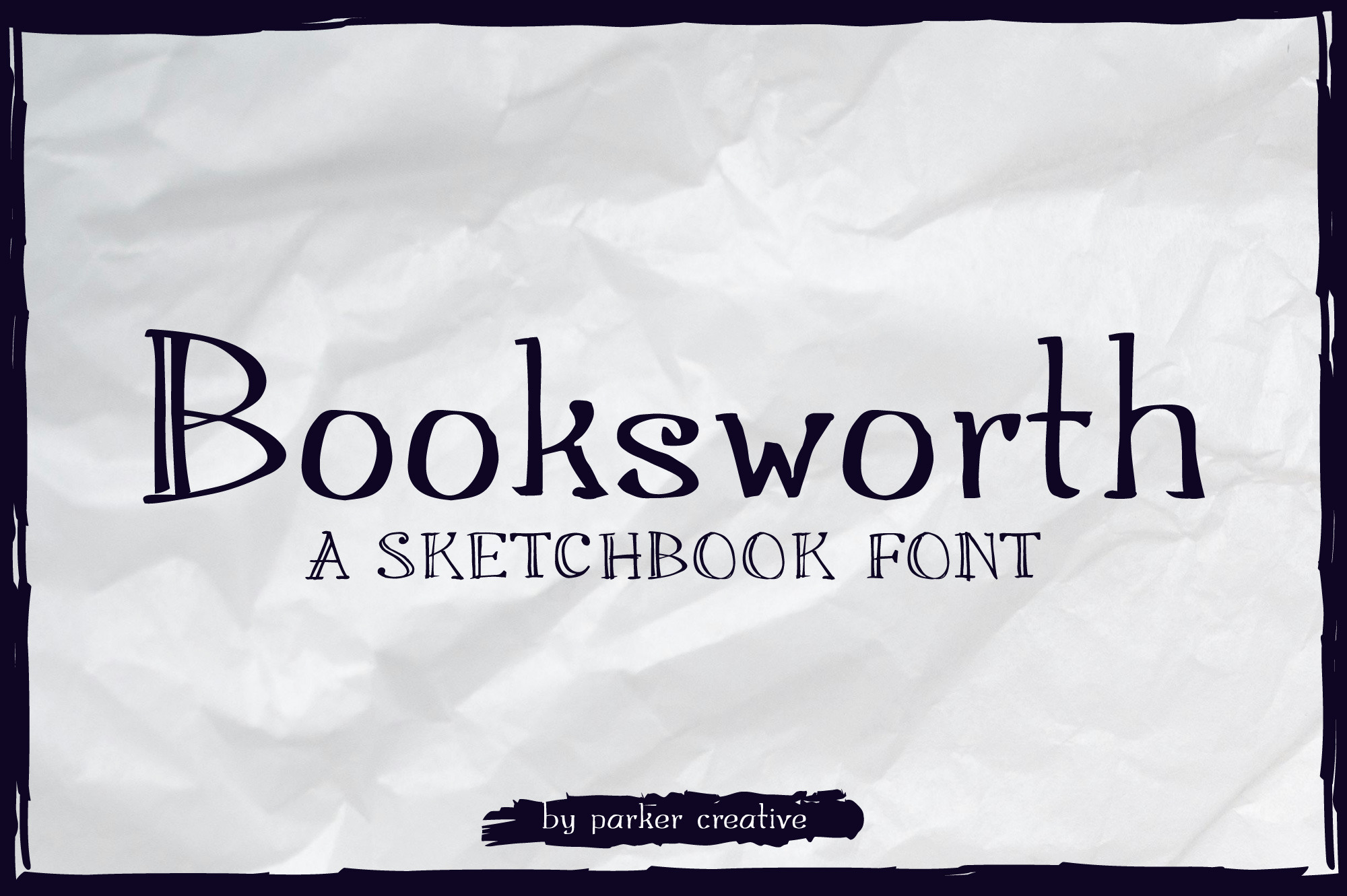
Booksworth - A Sketchbook Font
Booksworth is a unique sketchbook serif that emulates the quick and gritty scribbles of an old notebook. Each character is handmade with its own distinct rough edges to create a carefully balanced chicken scratch appearance. Booksworth also features double line stylization on capitals, numbers, and symbols and is well-spaced and kerned.
With over 220 characters, Booksworth features distinct uppercase, lowercase, symbols, punctuations, and numbers. Additional multilingual characters are also included.